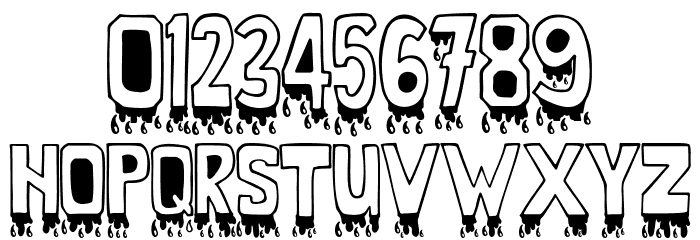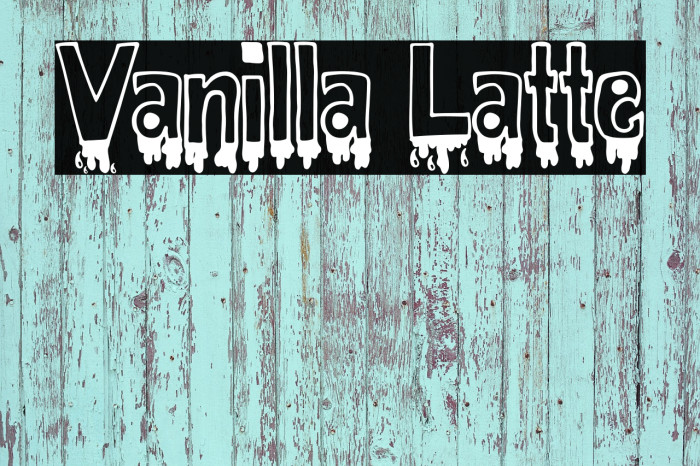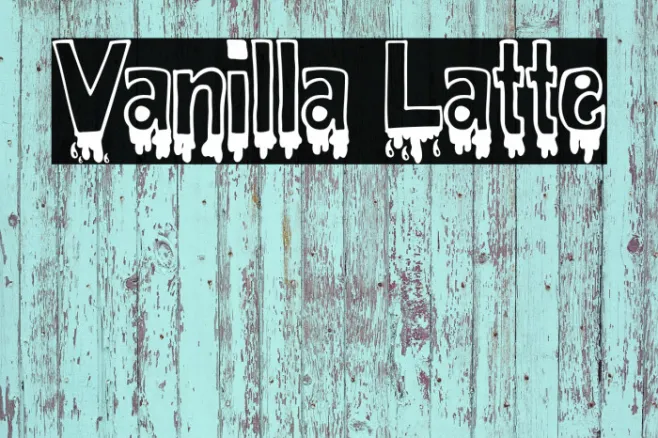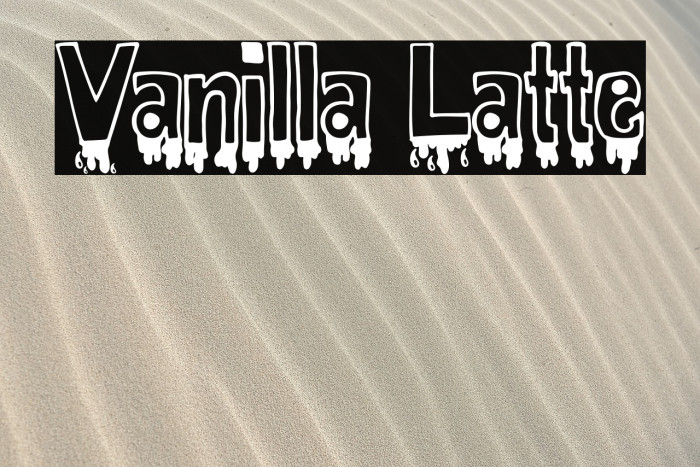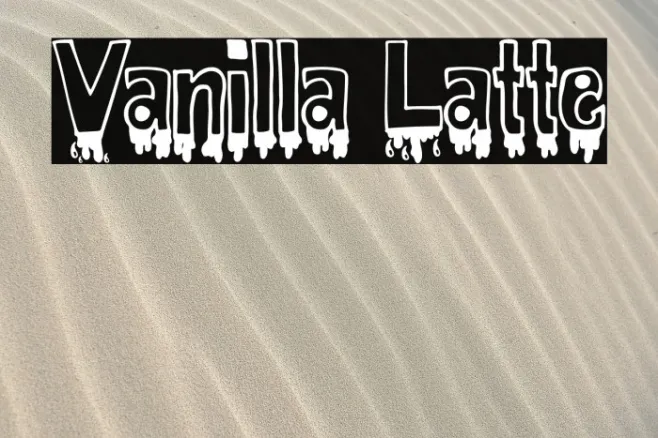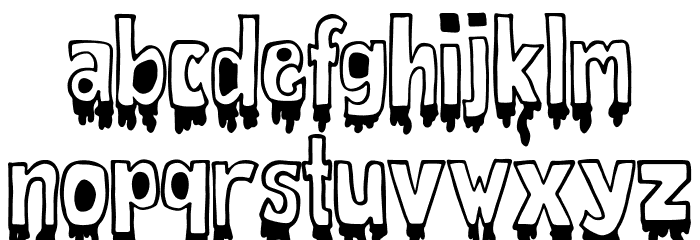
Vanilla Latte Font
Vanilla Latte Description
This playful and whimsical font features bold, uppercase and lowercase letters with a unique dripping effect at the bottom of each character, reminiscent of melting ice cream or paint. The characters are outlined, giving them a cartoonish and fun appearance. The numbers and special characters follow the same design, maintaining consistency throughout the set. The font's style is eye-catching and ideal for creative projects that require a touch of humor and lightheartedness. Its decorative nature makes it suitable for informal and playful contexts.
| Proposed Projects | Ideal for children's book covers, party invitations, playful branding, and creative posters. |